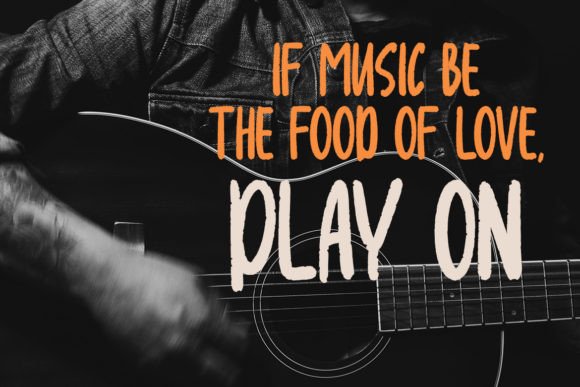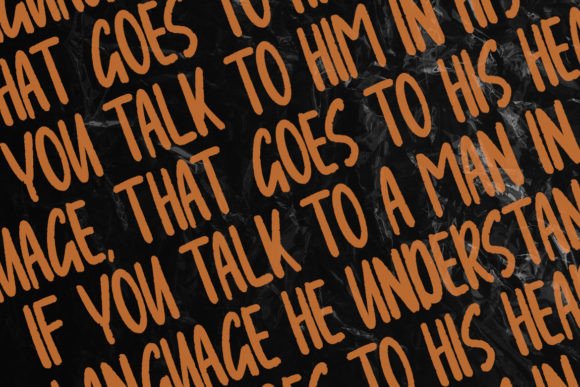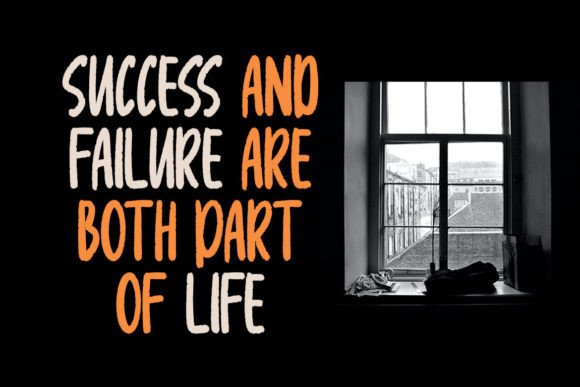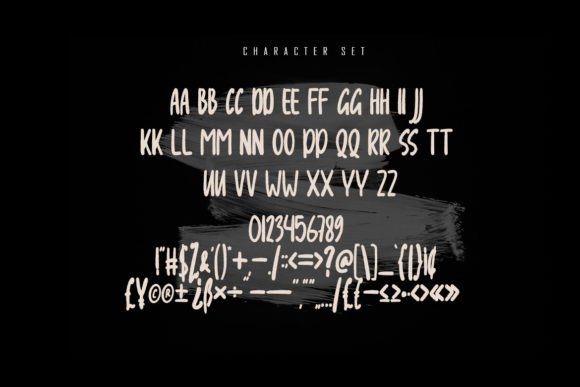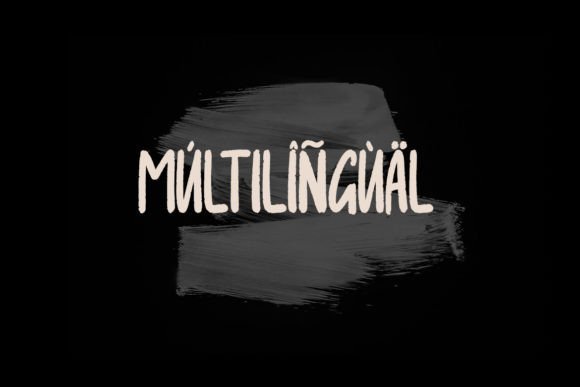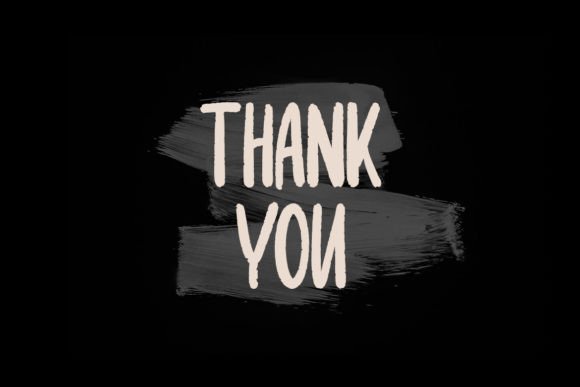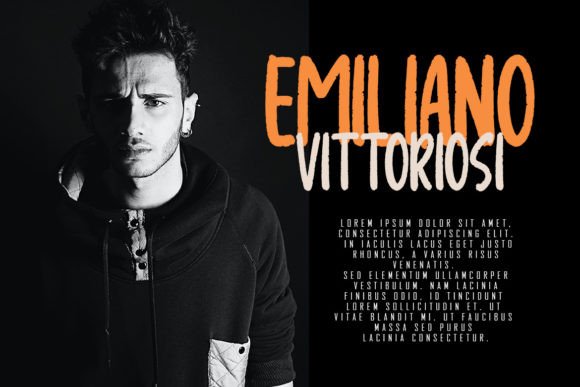
Operashi Font
About Operashi Font
**Operashi Font** is not just a typeface; it’s a textured brush handwritten expression with distinctive paint scratches, creating a unique and impactful design element. The textured strokes give the font a raw and authentic quality, making it stand out with a handcrafted and original feel.
The brush strokes and paint scratches in **Operashi Font** contribute to its artistic and dynamic appearance. This textured style is particularly suitable for film or commercial needs, as it adds a layer of visual interest and personality to your projects. It goes beyond conventional fonts, making a statement that aligns with a creative and expressive aesthetic.
Whether you’re creating promotional materials, designing for a film project, or working on commercial branding, **Operashi Font** is crafted to support your business or company with a distinctive and memorable visual identity. The textured brush style adds a touch of character and authenticity, making your designs more engaging and impactful.
In summary, **Operashi Font** is a textured brush handwritten typeface with paint scratches, designed to bring a unique and artistic quality to your projects. Perfect for film or commercial needs, it supports your business or company by adding a visually striking and memorable element to your design work.